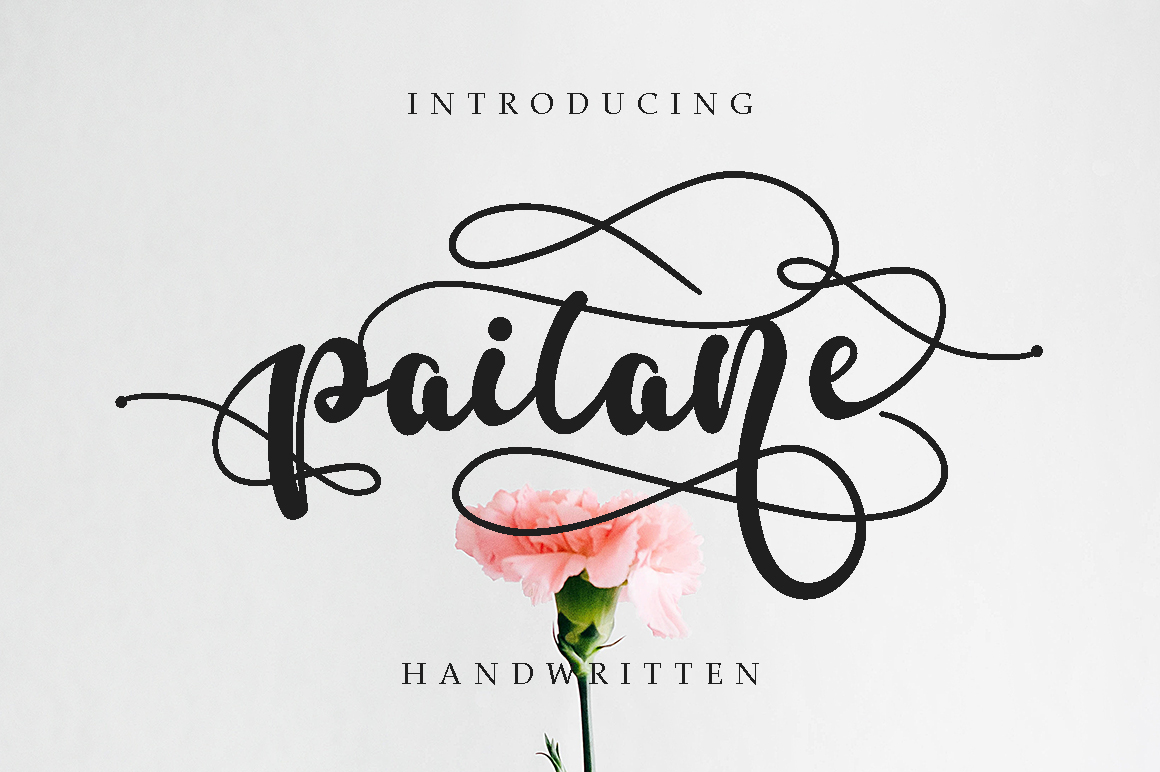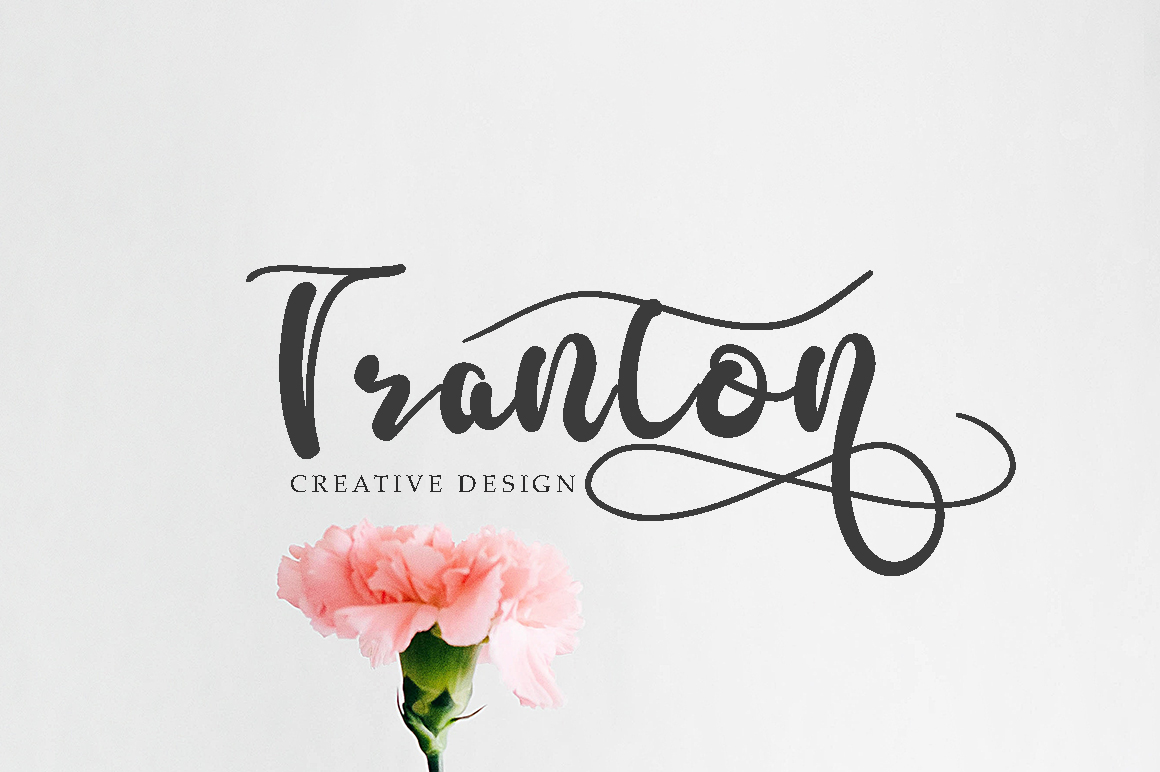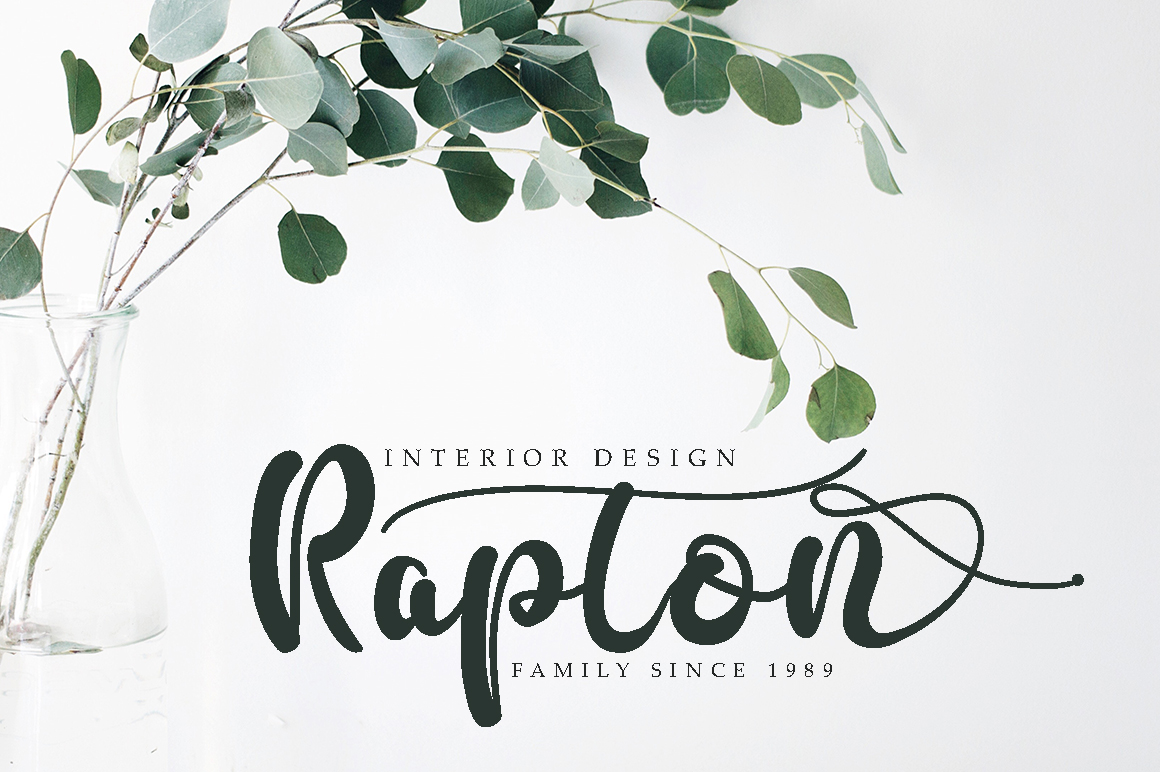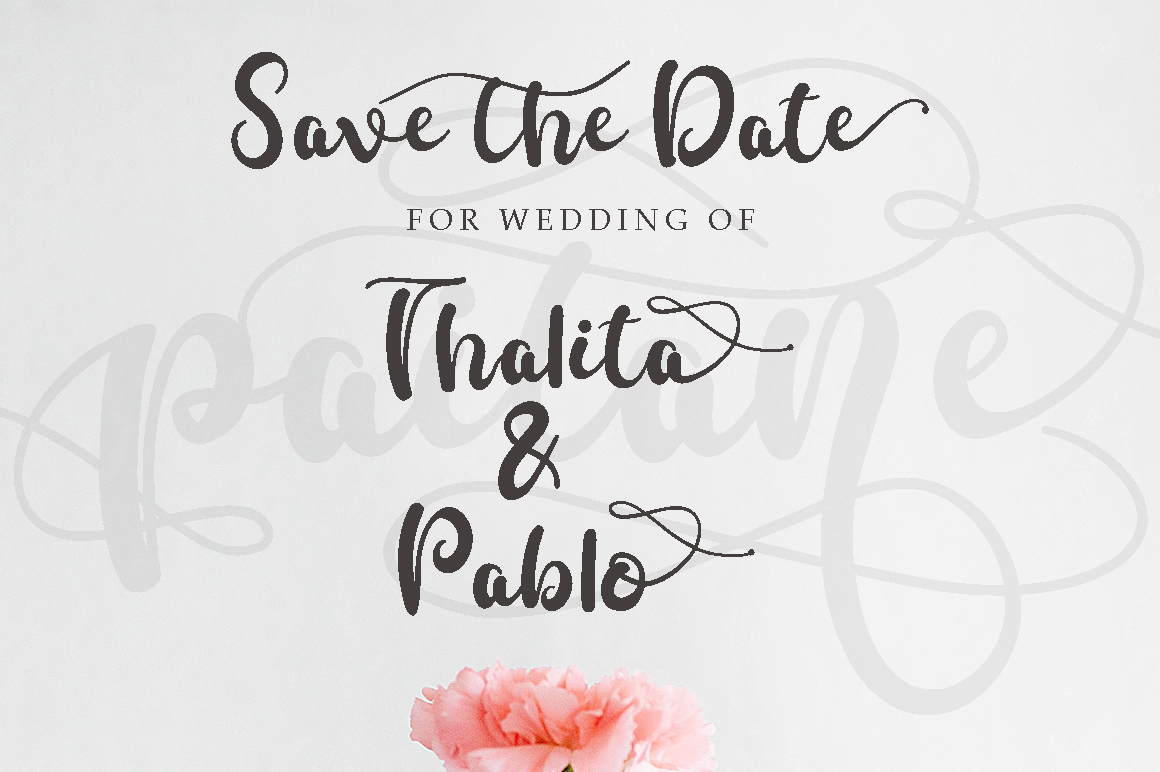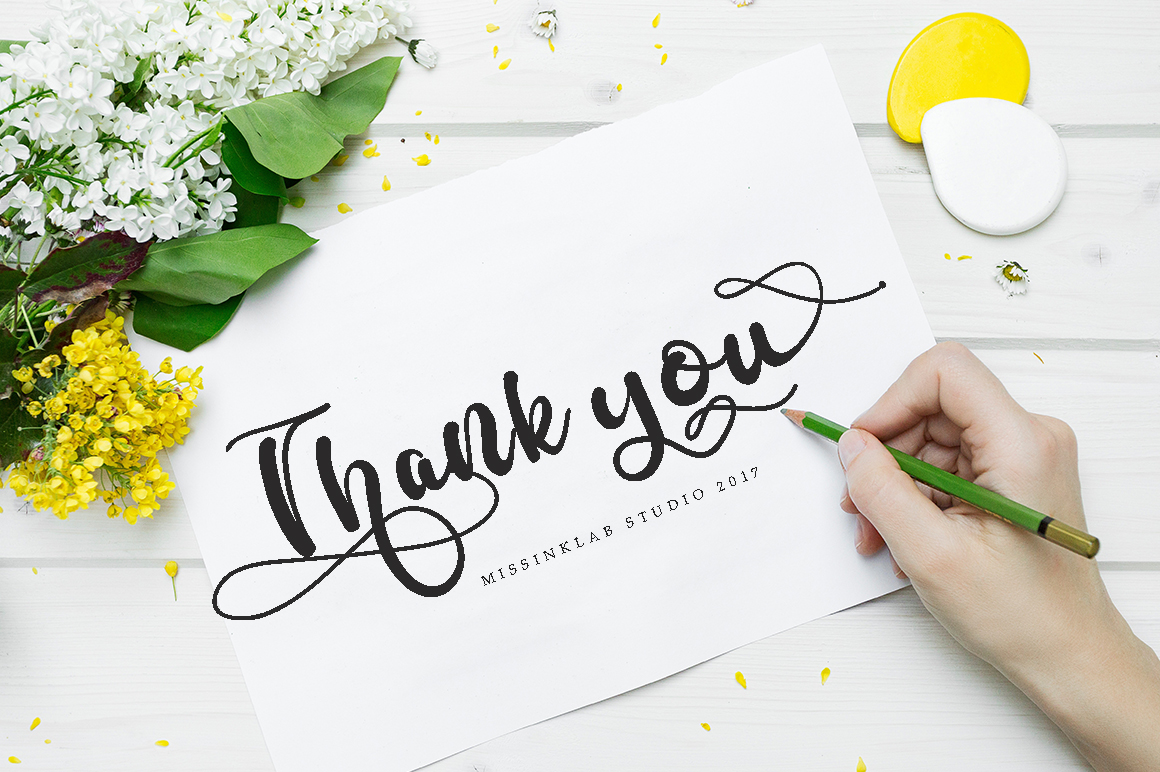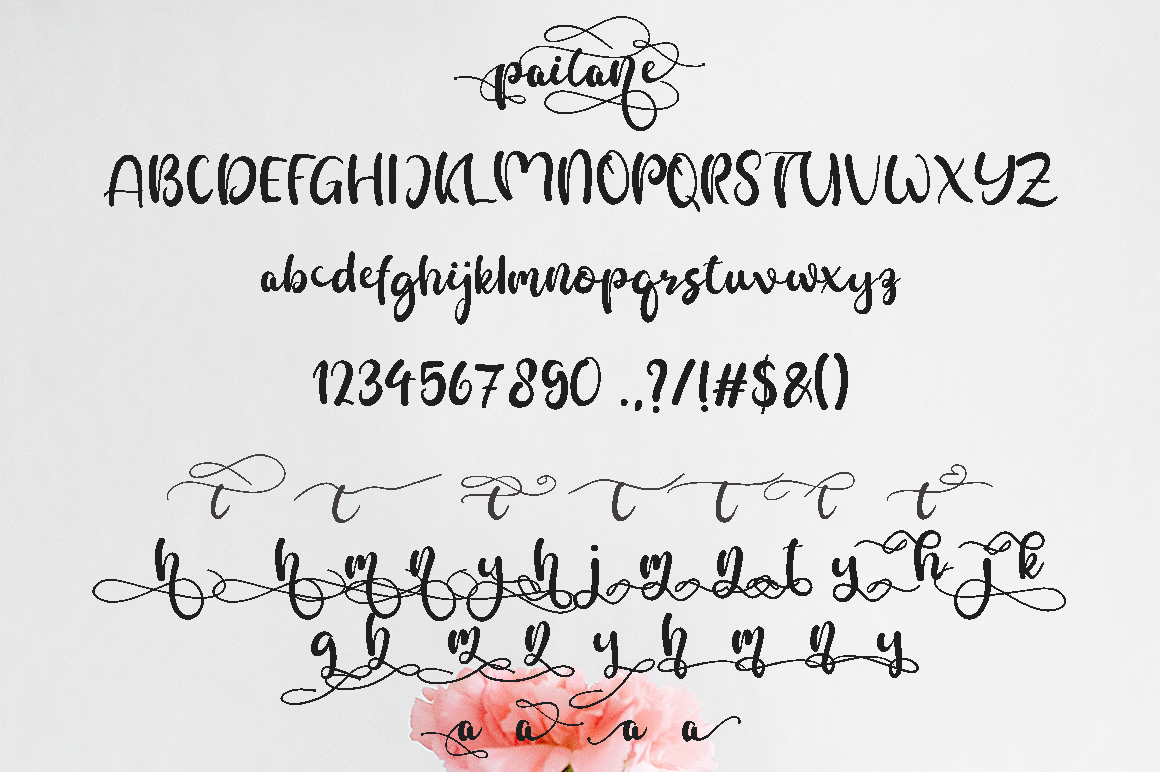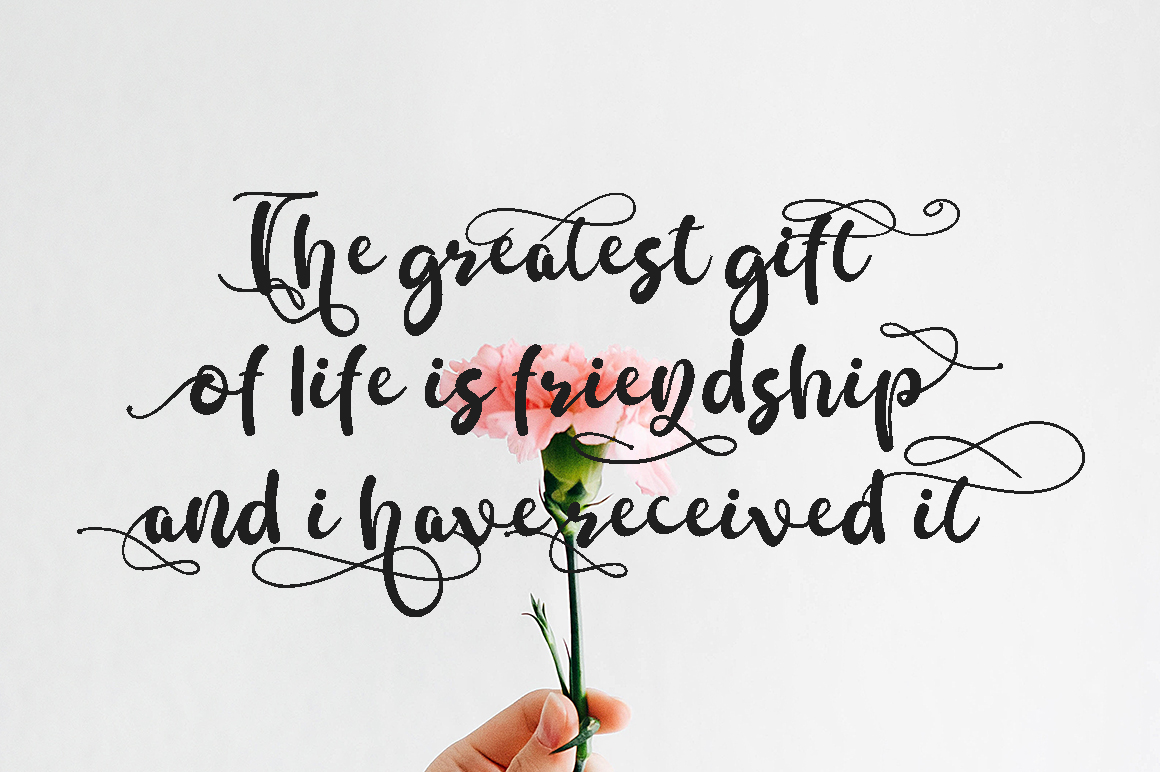
HomeScript FontsPaitane Font Script Fonts Paitane Font FacebookXPinterestWhatsApp Paitane Font Poster 2 Paitane Font Poster 3 Paitane Font Poster 4 Paitane Font Poster 5 Paitane Font Poster 6 Paitane Font Poster 7 About Paitane Font Paitane is a modern font packed with stunning swashes. Allowing you to create many different types of projects. DOWNLOAD NOW People also explored Buka Font Forth Smith Font Winy Poo Font Malinda Font Natural Script White Buttell Font Baseball Font Akhiran Boxing Font Raustila Font 398 0 TagsPaitane Font Previous articleMailitta FontNext articleRicttoria Font LEAVE A REPLY Cancel reply Comment: Please enter your comment! Name:* Please enter your name here Email:* You have entered an incorrect email address! Please enter your email address here Website: Save my name, email, and website in this browser for the next time I comment. Personal Use Free Madison Script Personal Use Free Read more about this font Bitcrusher Condensed Bold Personal Use Free Read more about this font Carnivals Personal Use Free Read more about this font Calega Personal Use Free Read more about this font BLOG Using Fonts in Digital Marketing: Tips to Strengthen Your Brand Identity In the realm of digital marketing, every visual element plays a crucial role in shaping a brand's identity, and fonts are no exception. The... Elegant Wedding Invitation Fonts – Handwritten & Script Fonts How to Cut Any Font on Cricut: Convert a Font to SVG (Free) Free vs Paid Fonts: Why Investing in Premium Fonts Is Worth It